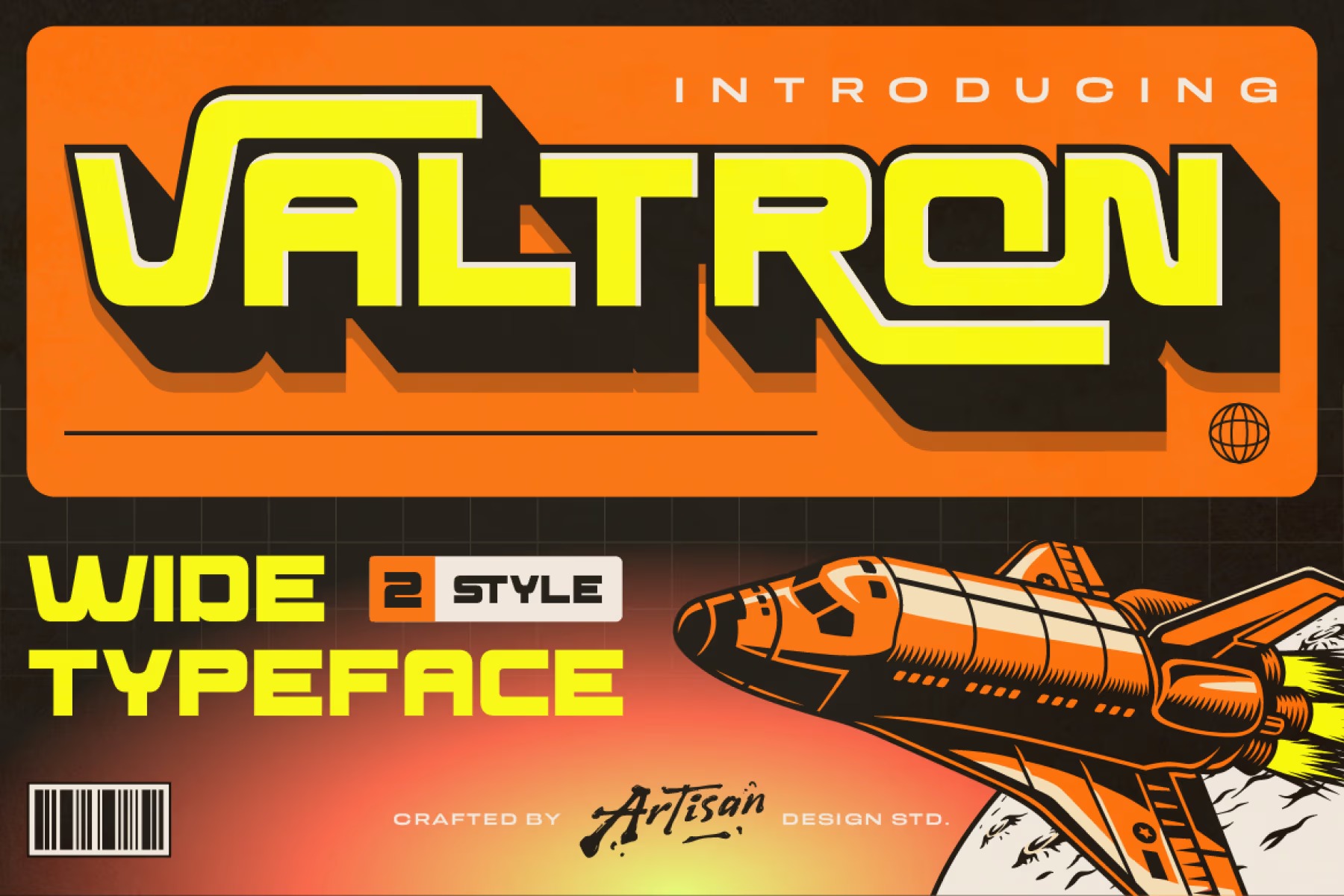
Valtron Font
Valtron Font is a stylish typeface that enhances visual appeal and works effortlessly in many design contexts. Valtron is a bold wide typeface inspired by retro-futuristic sci-fi visuals and space exploration aesthetics. With its strong geometric shapes, wide proportions, and sharp cuts, Valtron instantly delivers a powerful, futuristic vibe. This font comes with 2 styles: Regular and Extrude, allowing you to create depth, dimension, and eye-catching typography. It also includes ligatures and stylistic alternates, giving you more flexibility to customize your lettering and create unique logotypes or headlines. Valtron works best for sci-fi branding, futuristic logos, posters, game titles, space-themed designs, album covers, and bold display typography. Whether you want something loud, modern, or cosmic, Valtron is built to stand out.